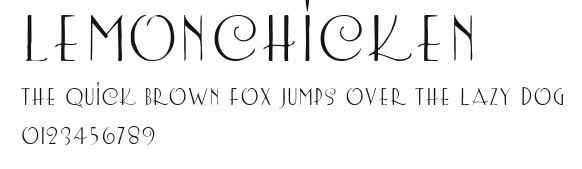
LemonChicken Preview
• Font Name: LemonChicken
• Full Font Name: LemonChicken
About LemonChicken.ttf
LemonChicken.ttf is a modern, elegant sans-serif font designed for ultimate readability and visual harmony. Perfect for branding, headlines, web design, and print materials.